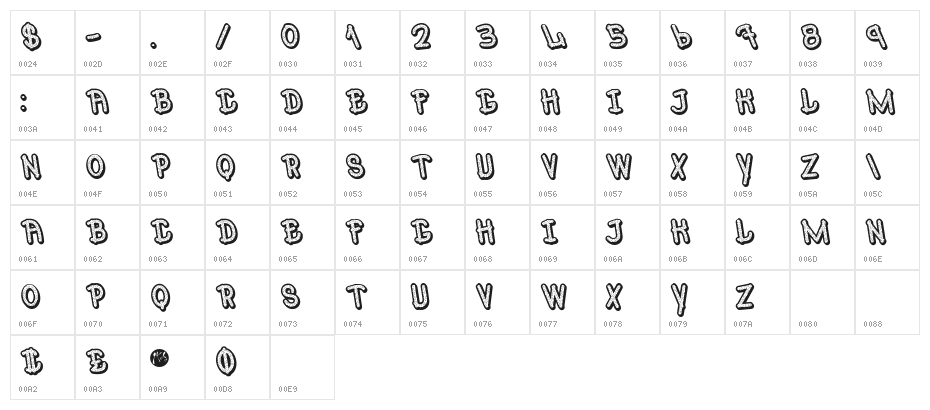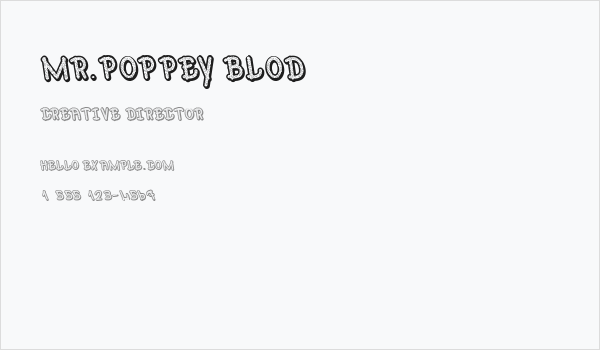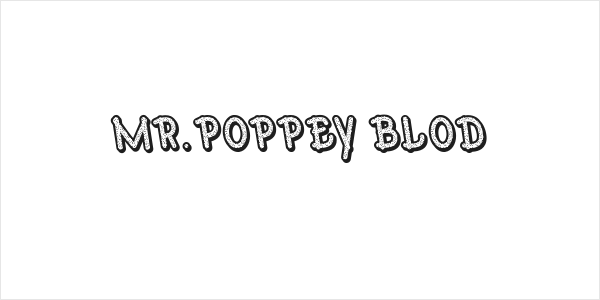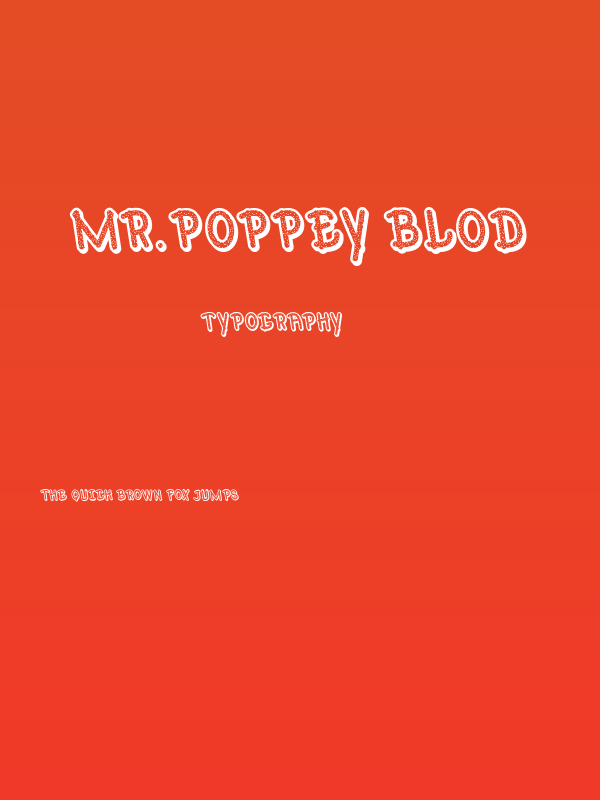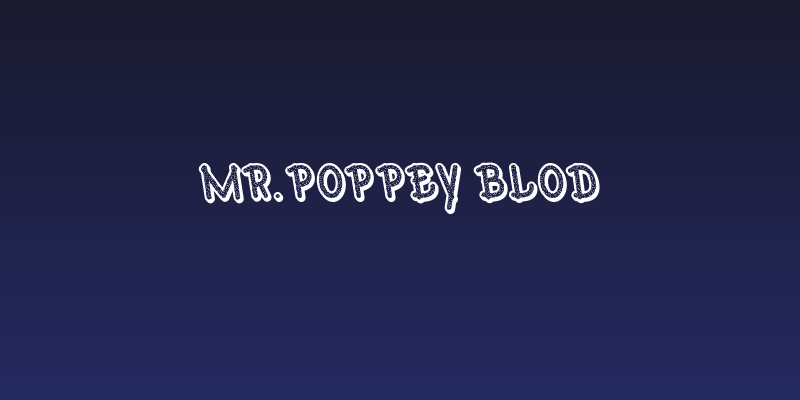
Mr.Poppey Blod Font
Mr.Poppey Blod Description
This playful and bold font features a unique, hand-drawn style with a dotted texture filling each character. The letters are outlined with a thick black border, adding a striking contrast that makes each character stand out. The uppercase and lowercase letters maintain a consistent style, with rounded edges and a slightly whimsical appearance. Numbers and special characters are designed to match the playful aesthetic, making this font ideal for creative and informal projects. Its decorative nature and bold presence make it suitable for eye-catching designs.
| Overall Style | Playful, Whimsical, Decorative |
| Proposed Projects | Ideal for children's books, comic strips, playful branding, posters, and party invitations. |